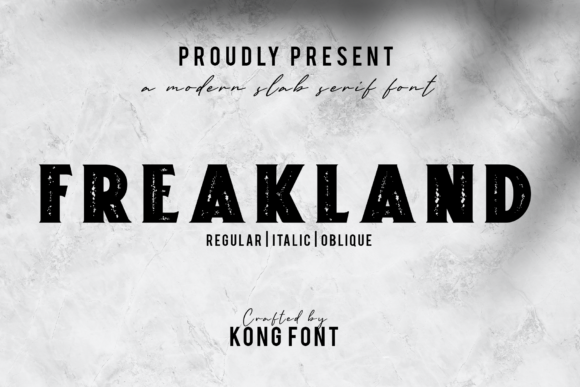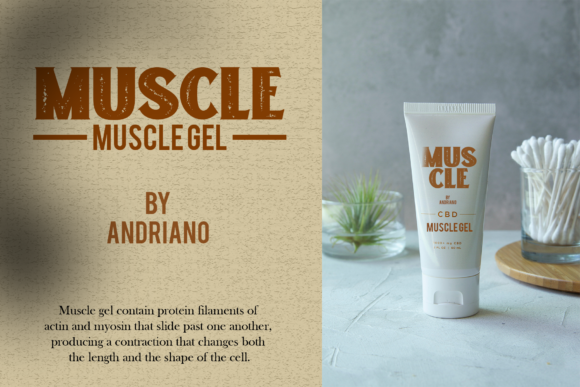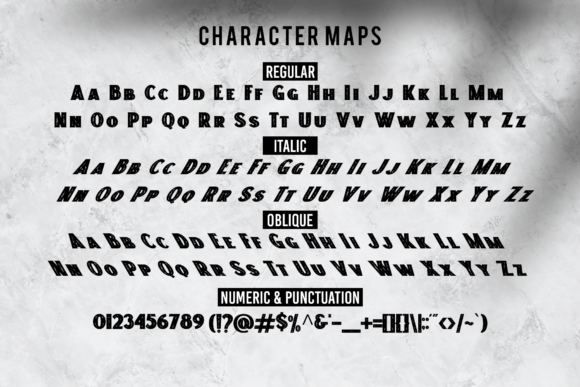
Freakland
Freakland: A Modern and Playful Handwritten Script Font
Freakland is a modern and playful handwritten script font. Created by Kong Font Studio, it’s great for crafters and designers. This font is compatible with tools such as Photoshop and Silhouette design studio, making it versatile for various creative projects. Its playful nature makes it perfect for adding a fun touch to your designs.
Key Features of Freakland
• Modern Design: Offers a contemporary look suitable for various applications.
• Playful Style: Brings a fun and energetic feel to your designs.
• Handwritten Script: Provides a personal and authentic touch.
Ideal Uses for Freakland
Freakland’s unique characteristics make it particularly well-suited for:
When incorporating Freakland into your designs, consider these tips:
• Use for headlines or short phrases to showcase its playful style.
• Experiment with different sizes to highlight the font’s handwritten features.
Freakland is an excellent choice for designers and crafters looking to add a modern and playful handwritten script font to their typographic toolkit. Its ability to bring fun and energy to various design projects makes it stand out in the world of typography. Whether you’re working on social media content, creating greeting cards, or developing branding for a creative business, Freakland offers the perfect blend of style and personality.
Furthermore, Freakland’s unique design allows it to shine in various contexts. From digital designs to print projects, this font can elevate your creations with its distinctive handwritten style. Its playful yet readable style works particularly well in designs that require a friendly and approachable mood.
In conclusion, Freakland is a font that truly captures the essence of creativity and fun in typography. Its ability to work well in both digital and print media showcases its versatility. For those looking to add a touch of playful charm to their work, Freakland can enhance themed creations with its distinctive style. It’s the perfect choice for designers seeking to make a friendly, stylish impact across a wide range of creative projects.